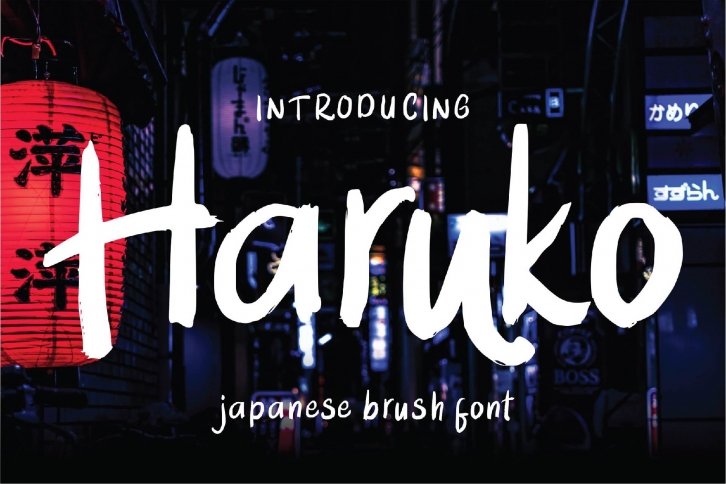
Haruko - Brush Font Download
Haruko is a great font that was designed by IanMikraz. Imagine the amount of combinations you can create using this font! The archive is 16.52 MB and it was released on August 25, 2019. Haruko looks beautiful on wedding invitations, greeting cards, logos, posters, labels, t-shirt designs, logos, business cards and is perfect for use in ink or watercolor works, fashion, magazines, packaging and food menus, children's books and more!